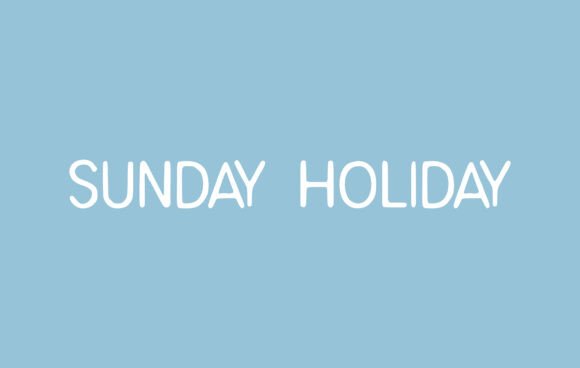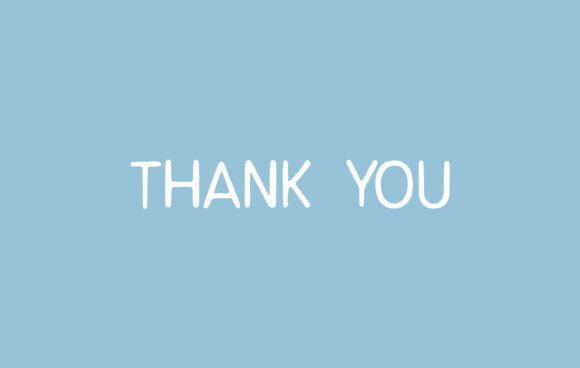
Introducing Fluxion Font: The Ultimate Handwritten Font for Creative Expression
In the world of typography, a good font can make all the difference in elevating your creative project from ordinary to extraordinary. If you’re a designer, crafty DIY enthusiast, or social media influencer looking for a unique and authentic handwritten font, look no further than Fluxion Font. This beautifully crafted font is designed to add a romantic touch to your designs, making it perfect for a wide range of creative projects.
What Makes Fluxion Font Special?
Fluxion Font is an authentic handwritten font that boasts a distinctive romantic flair. Its expertly designed characters are carefully crafted to convey a sense of elegance and sophistication, making it an excellent choice for designers and crafters seeking to add a touch of refinement to their work. The font’s exceptional legibility ensures that it looks great not only as a title but also as body text, providing versatility and flexibility in its application.
Endless Design Possibilities with Fluxion Font
One of the standout features of Fluxion Font is its incredible versatility. Its unique blend of elegance and playfulness makes it suitable for a diverse range of design projects. Here are just a few examples of how you can use Fluxion Font to take your creative ideas to the next level:
• Magazine Headlines: Add a touch of sophistication to your magazine headlines with Fluxion Font’s elegant and refined characters.
• Social Media: Elevate your social media presence with eye-catching graphics and posts featuring Fluxion Font.
• Branding: Use Fluxion Font to create a distinctive brand identity that exudes elegance and refinement.
• Wedding Invitations: Make your wedding invitations truly special with Fluxion Font’s romantic and whimsical touch.
• Cards: Create beautiful greeting cards, thank-you cards, and more with Fluxion Font’s charming and elegant characters.
Why Designers and Crafters Love Fluxion Font
So, what sets Fluxion Font apart from other fonts on the market? Here are just a few reasons why designers and crafters alike are falling in love with this incredible font:
• Unique and Authentic: Fluxion Font boasts a distinctive, handwritten look that’s both authentic and eye-catching.
• Legible and Versatile: The font’s exceptional legibility makes it perfect for use as both title and body text.
• Elegant and Refined: Fluxion Font’s elegant characters add a touch of sophistication to any design project.
• Easy to Use: Fluxion Font is incredibly easy to use, making it accessible to designers and crafters of all skill levels.
Tips for Getting the Most Out of Fluxion Font
To help you get started with Fluxion Font, here are a few expert tips for incorporating this amazing font into your design projects:
• Experiment with Colors: Fluxion Font looks stunning in a range of colors, so don’t be afraid to experiment and find the perfect hue for your design.
• Mix and Match: Combine Fluxion Font with other fonts to create a unique and eye-catching design.
• Play with Size: Fluxion Font looks great in a range of sizes, from large headlines to smaller body text.